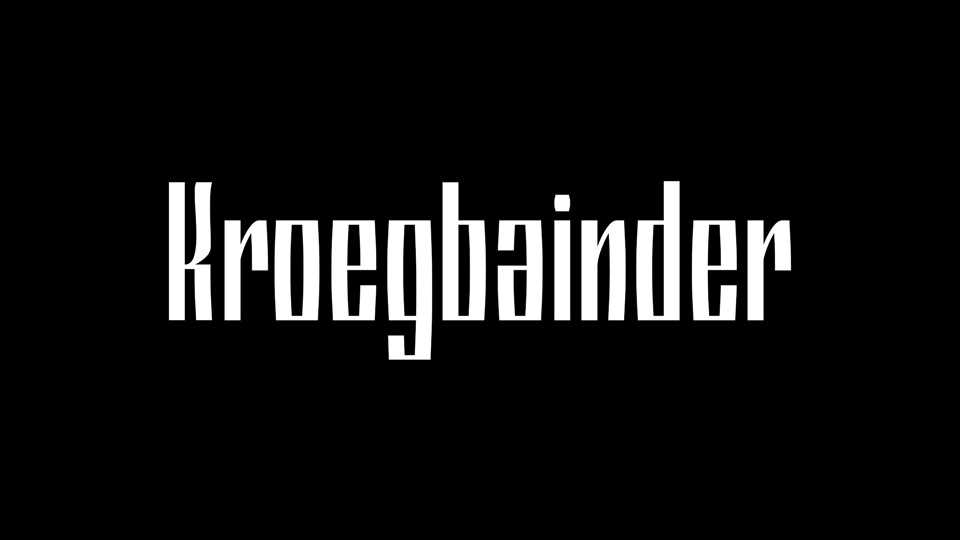
Download Kroegbainder font, a display typeface inspired of the early 70s cheap radios and tape recorders, some of them made in the old DDR.
Designer: Tup Wanders